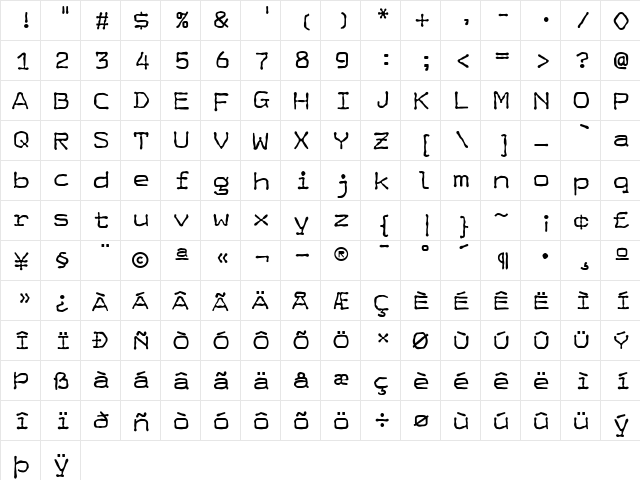
HardCase Regular
Design Context for HardCase Typeface
HardCase takes a measured approach to typography — its balanced proportions and neutral character make it a reliable workhorse for both digital and print work.